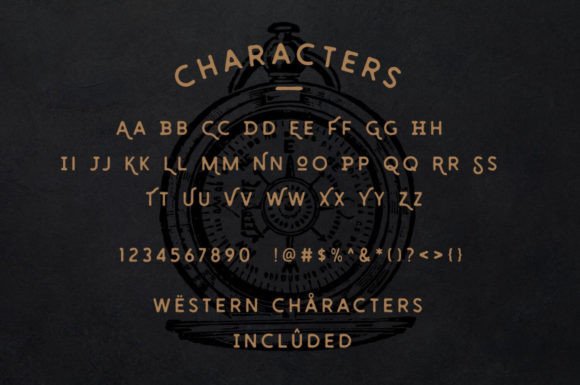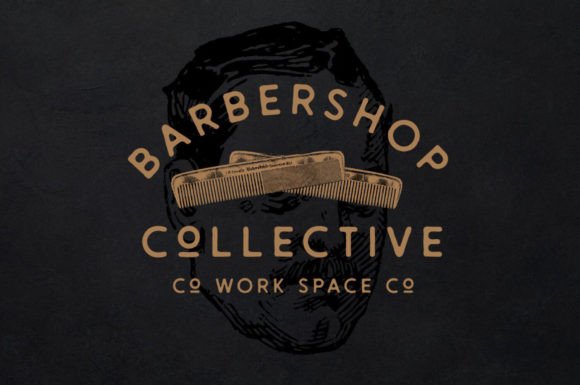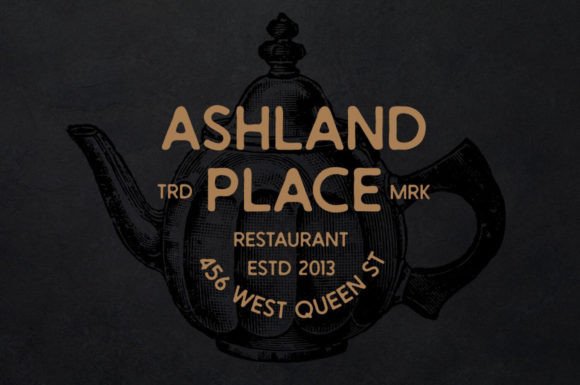
Introduction to Ole Stock Font
Imagine yourself immersed in a creative project, surrounded by dusty old machinery and vintage signs. You’re searching for the perfect font to capture the essence of your industrial or retro theme, something that exudes a sense of nostalgia and timelessness. That’s when you stumble upon the Ole Stock Font, a vintage hand drawn sans serif font that’s sure to elevate your design to the next level.
As a designer, you know how crucial it is to have access to high-quality design resources that can help you bring your creative vision to life. The Ole Stock Font is more than just a pretty face – it’s a valuable tool that offers multilingual support and a second set of capital letters, allowing you to create distinct custom style typography in no time.
Key Features of Ole Stock Font
- High-quality design resource with a transparent background, perfect for creative projects.
- Includes a range of unique characters and glyphs, making it a versatile font for various design applications.
- Features a clean and modern design, suitable for use in a variety of creative projects, from logos to graphics.
Honest Review: Ole Stock Font
As a designer, I’ve been on the hunt for high-quality design resources that can elevate my creative projects. Recently, I stumbled upon the Ole Stock Font, which caught my attention with its unique style and transparent background.
The Ole Stock Font offers a range of styles that can be used for various design purposes. ✨ I particularly appreciate the versatility of this font, which can be easily integrated into different design elements, from logos to text-based designs.
- High-quality design: The font is well-designed and suitable for a variety of creative projects, from branding to publishing.
While the Ole Stock Font is an excellent addition to any design arsenal, I do have a few limitations to note: ⚠️ The font may not be suitable for all design purposes, and some users may find the styles too minimalist.
Overall, I’m impressed with the Ole Stock Font and would recommend it to designers looking for a high-quality, free download resource for their creative projects.
Ole Stock Font is ideal for a wide range of creative projects, including:
– Social media graphics
– Business logos
– Text-based designs
– Infographics